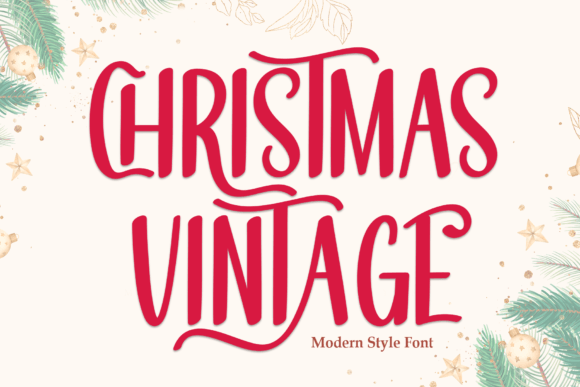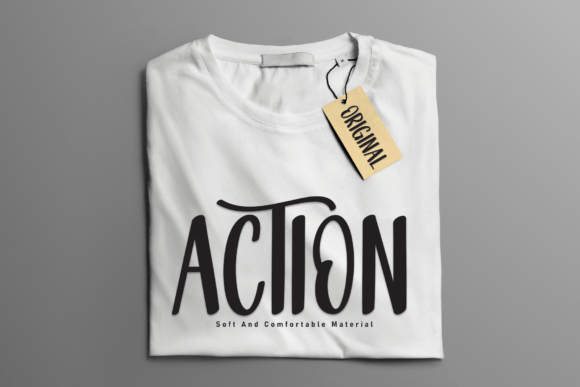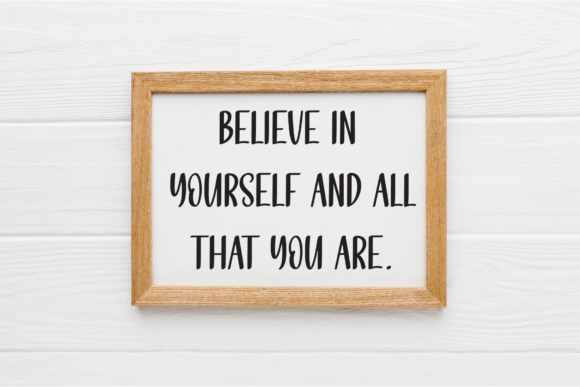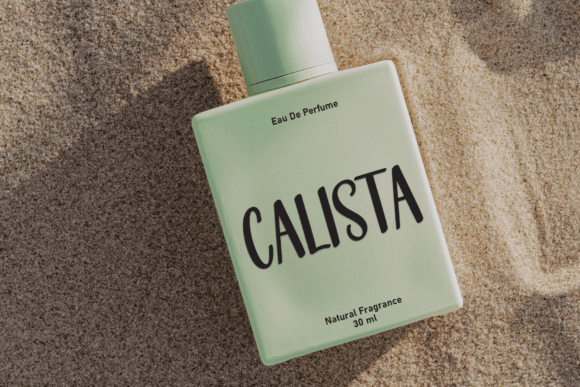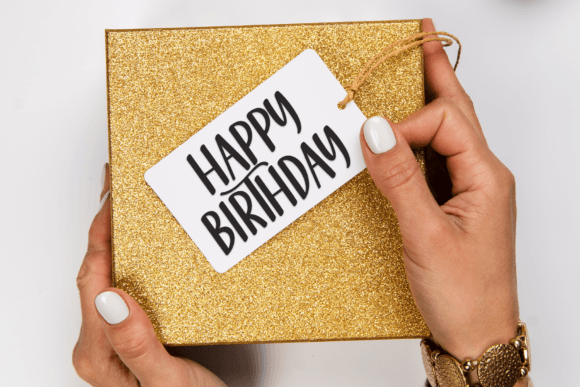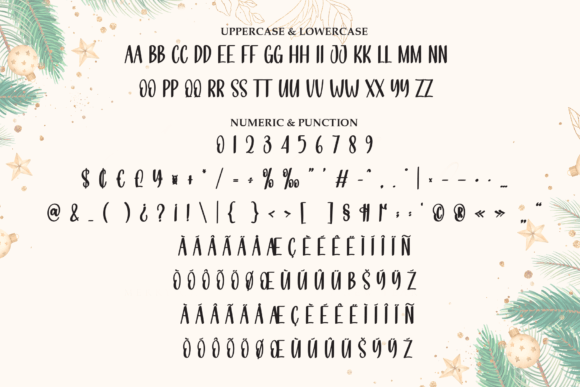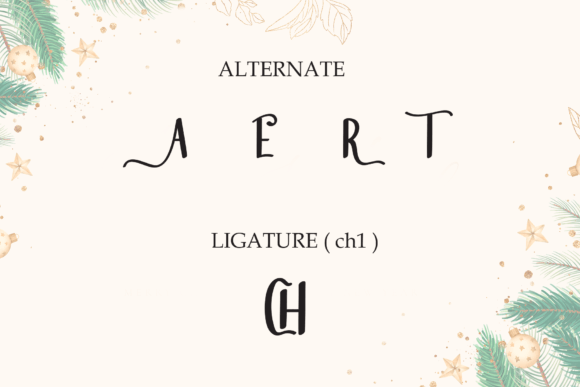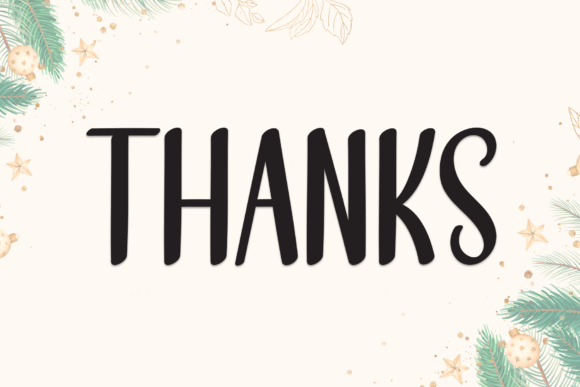
Christmas Vintage Font
Christmas Vintage is a festive display font that brings a touch of holiday nostalgia to your designs. With a timeless, vintage-inspired style, this font adds a cozy and traditional feel to any Christmas project. Perfect for creating warm and inviting holiday messages, Christmas Vintage is a simple yet charming choice for spreading seasonal cheer in your designs.